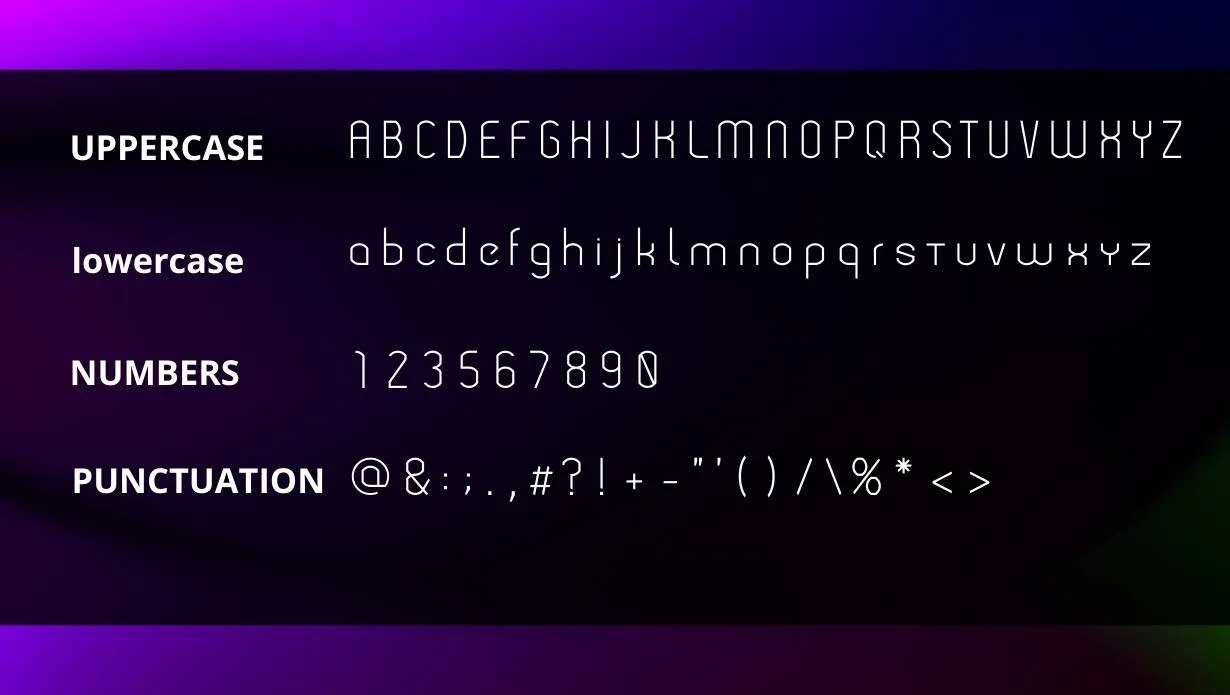
Modeka Font is a decorative font that was created by Fontalicious in 2011. The Typeface family is Modeka and it consists of 2 styles, Regular and Bold.
The typeface family supports lots of foreign languages and seems better when you pair it with another decorative typeface like high stories font an elegant sans-serif style font with a simple attractive visual that you can also get from the Adobe fonts library.
- Modeka Regular
Modeka Font Info
| Name | Modeka Font |
| Designer | Fontalicious |